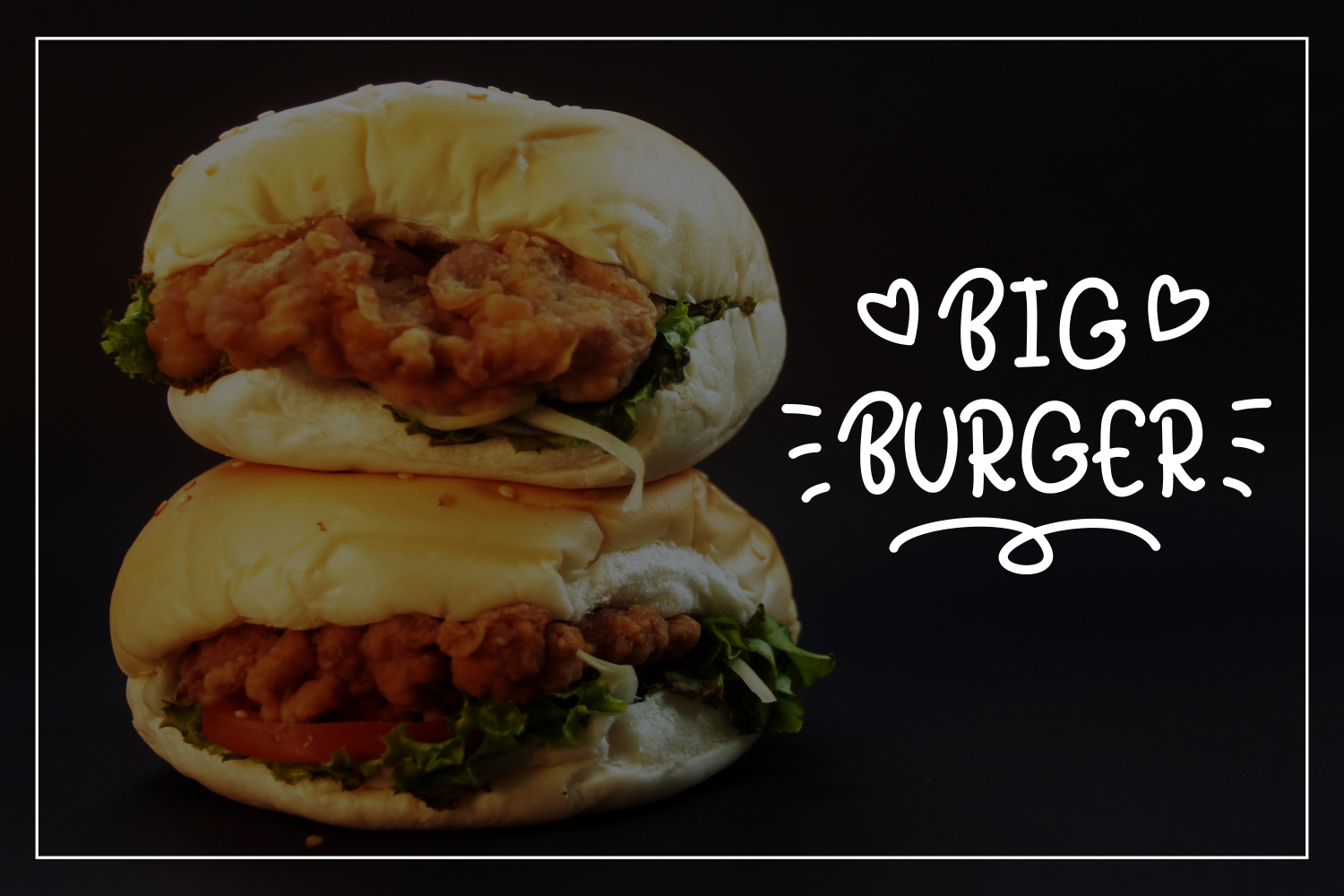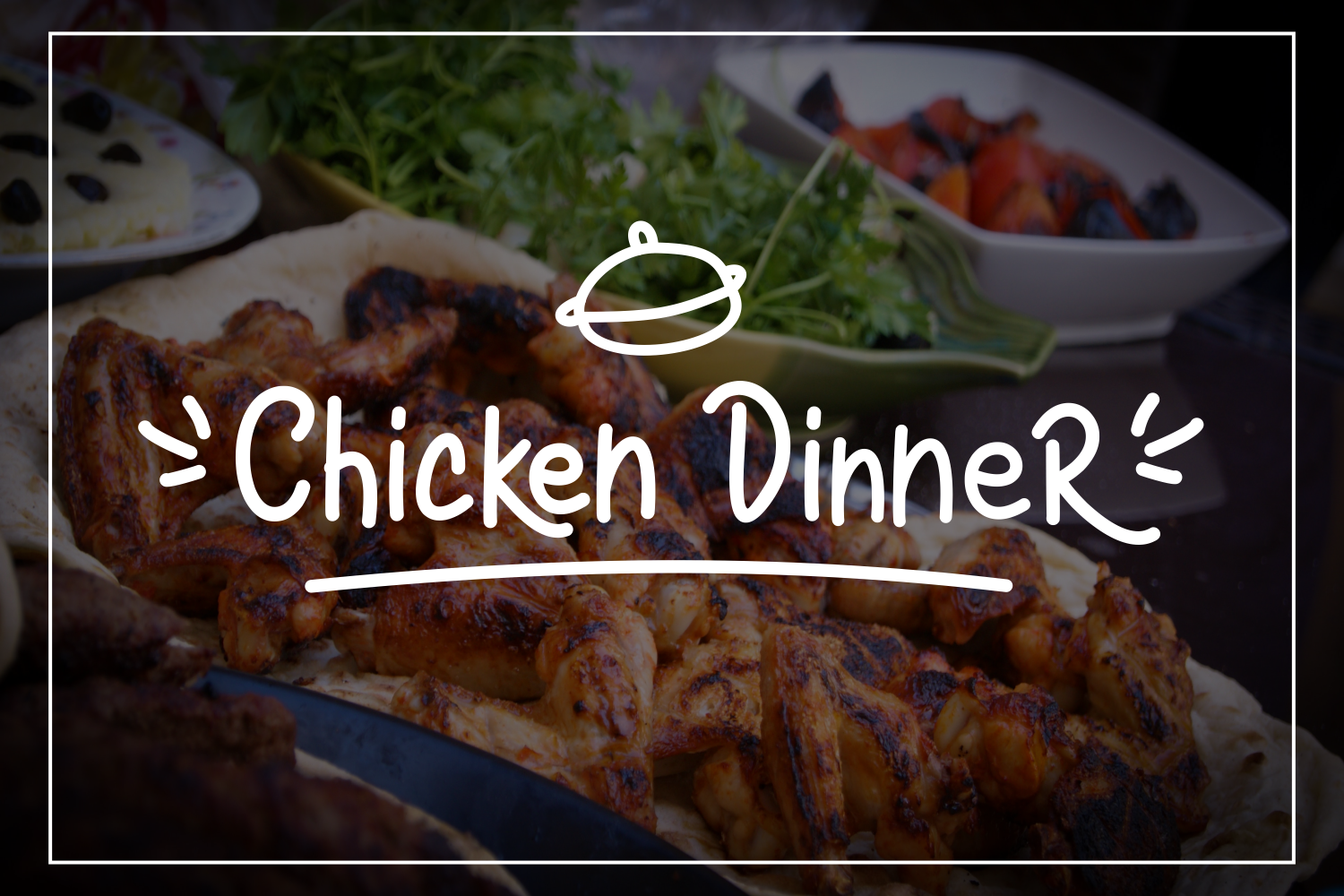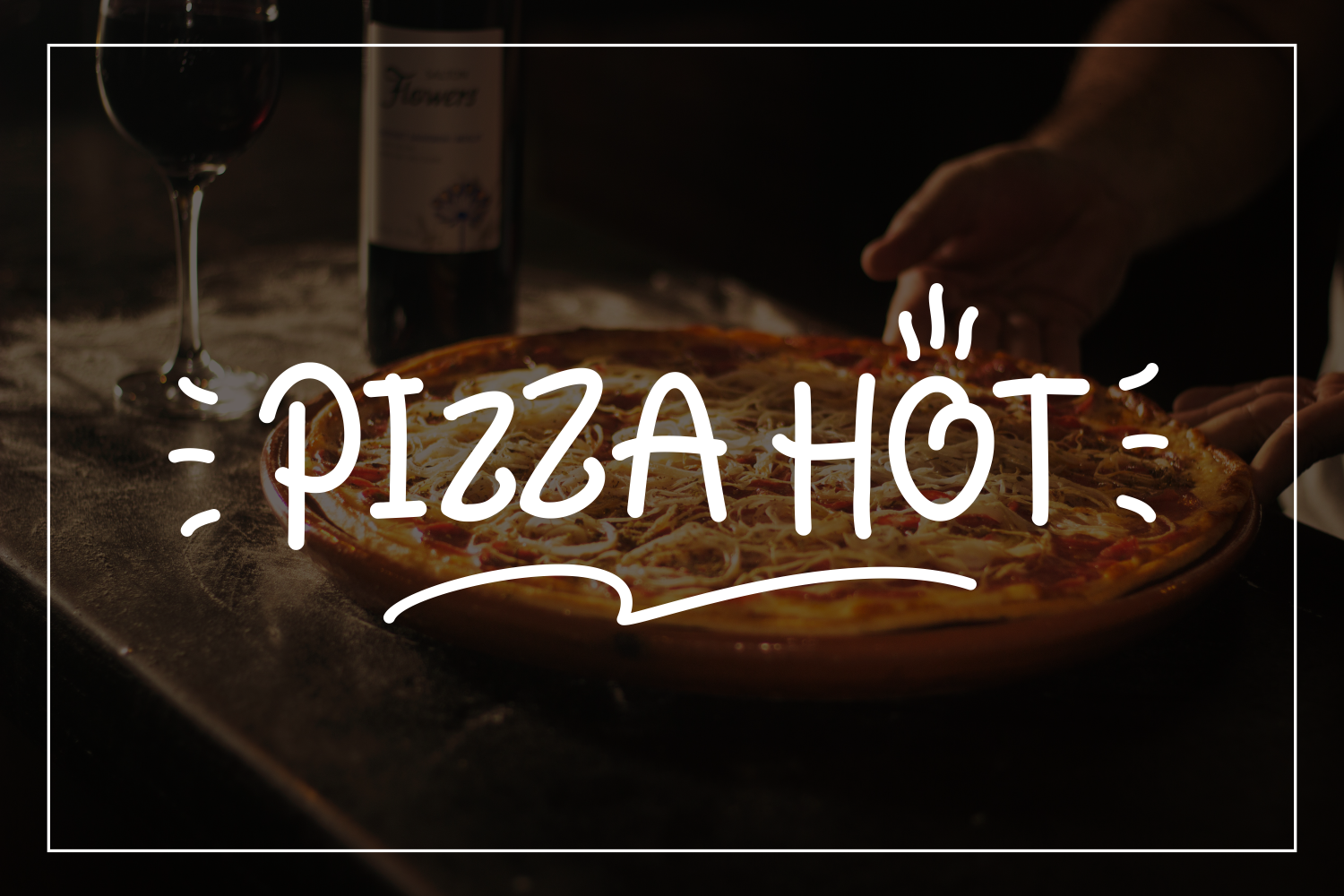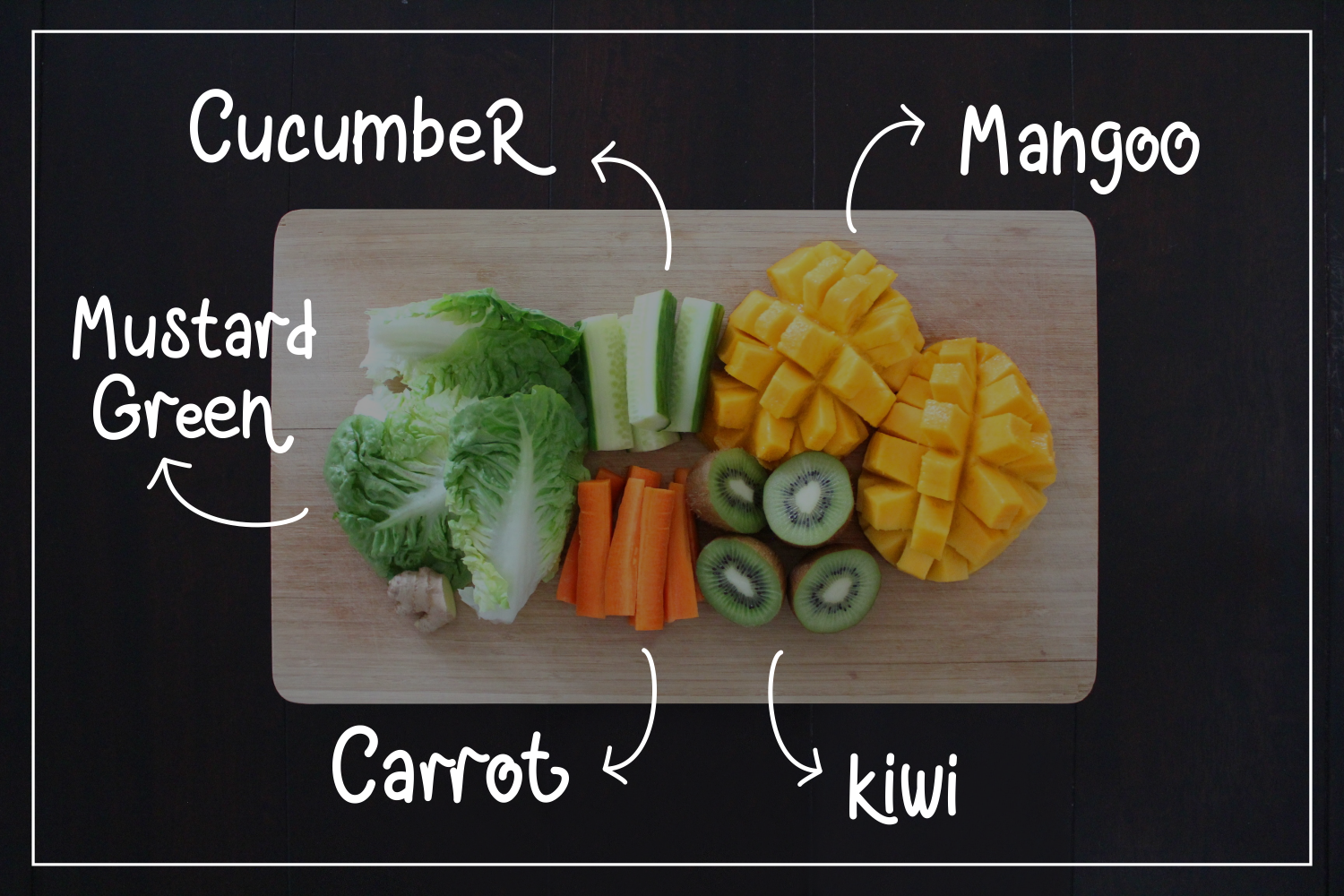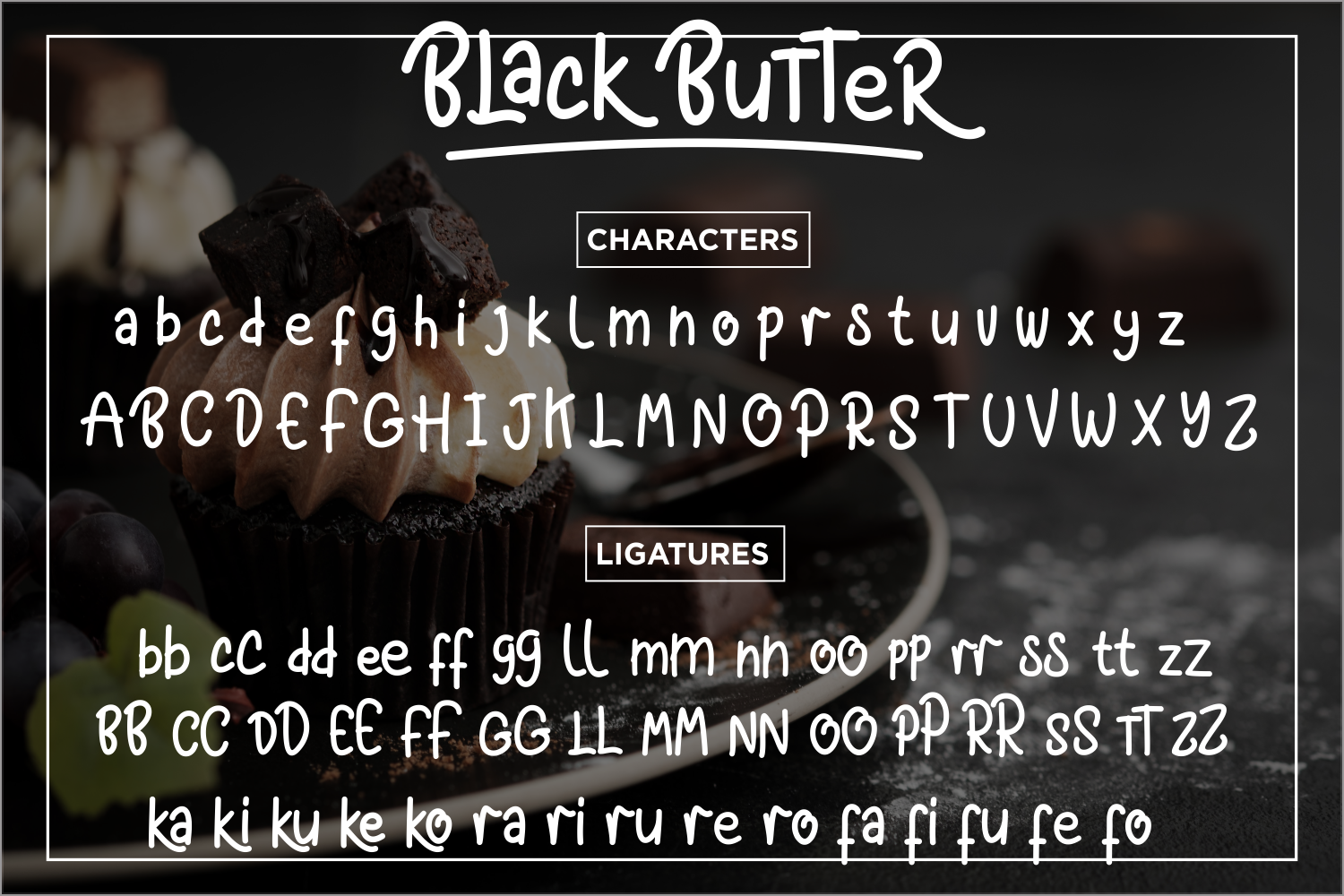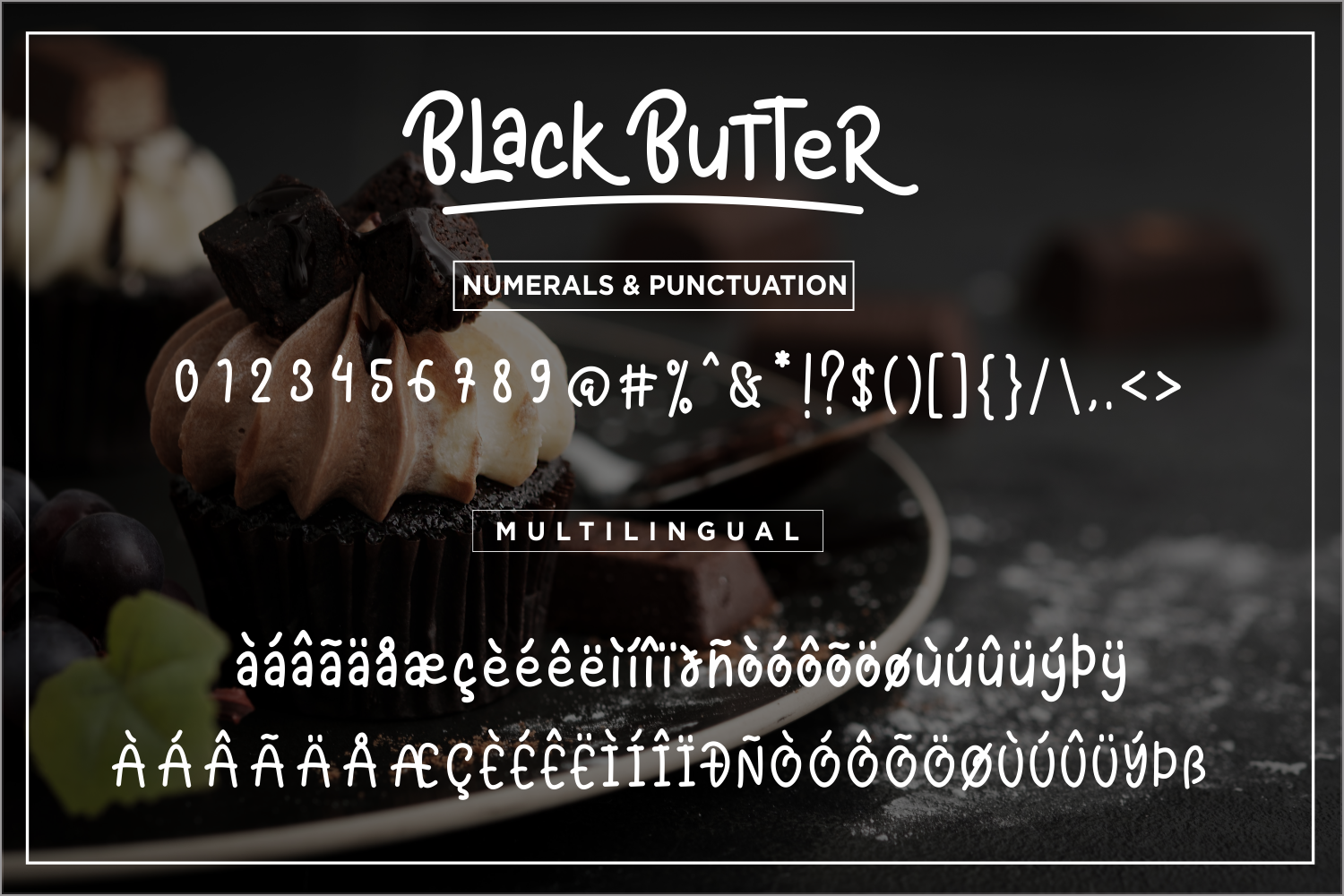
Introducing Black Butter Font: A Playful and Versatile Typeface
Are you tired of using the same old fonts for your designs? Look no further than the Black Butter Font, a playful and lovely typeface that is sure to add a touch of whimsy to your projects. With its many ligatures, alternates, swashes, and doodles, this font offers a ton of different options for friendly designs that are sure to capture your audience’s attention.
What Makes Black Butter Font So Special?
Black Butter Font is a highly versatile typeface that is both legible and easy to read. This makes it perfect for a wide range of project types, from branding and packaging to signage and digital media. Whether you’re a designer, crafter, or DIY enthusiast, this font is sure to become a go-to in your collection.
A Font with Personality
Black Butter Font has a unique and playful personality that sets it apart from other typefaces. Its many ligatures, alternates, and swashes give it a hand-drawn feel that is both friendly and approachable. This font is perfect for designs that require a personal touch, such as invitations, greeting cards, and social media graphics.
Key Features of Black Butter Font
- Many ligatures: Black Butter Font features a range of ligatures that give it a unique and hand-drawn feel.
- Alternates and swashes: The font includes a variety of alternates and swashes that add a touch of elegance and sophistication to your designs.
- Doodles: The font also includes a range of doodles that can be used to add a playful touch to your designs.
- Legible and easy to read: Despite its playful personality, Black Butter Font is highly legible and easy to read, making it perfect for a wide range of project types.
Uses for Black Butter Font
Black Butter Font is a highly versatile typeface that can be used for a wide range of projects, including:
- Branding and packaging: Use Black Butter Font to create eye-catching logos and packaging that stands out on store shelves.
- Signage: The font’s legibility and easy-to-read design make it perfect for signage, including billboards, posters, and flyers.
- Digital media: Use Black Butter Font to create engaging social media graphics, blog posts, and website headers.
- Crafting and DIY projects: The font’s playful personality makes it perfect for crafting and DIY projects, such as invitations, greeting cards, and scrapbooking.
Tips for Using Black Butter Font
- Experiment with ligatures and alternates: Don’t be afraid to try out different ligatures and alternates to add a unique touch to your designs.
- Use doodles to add a playful touch: The font’s doodles are perfect for adding a playful touch to your designs, such as in illustrations or graphics.
| Font Name | Black Butter Font |
| Author | Sronstudio |
Black Butter Font is a playful and versatile typeface that is sure to add a touch of whimsy to your designs. With its many ligatures, alternates, swashes, and doodles, this font offers a ton of different options for friendly designs that are sure to capture your audience’s attention. Whether you’re a designer, crafter, or DIY enthusiast, Black Butter Font is a must-have in your collection.